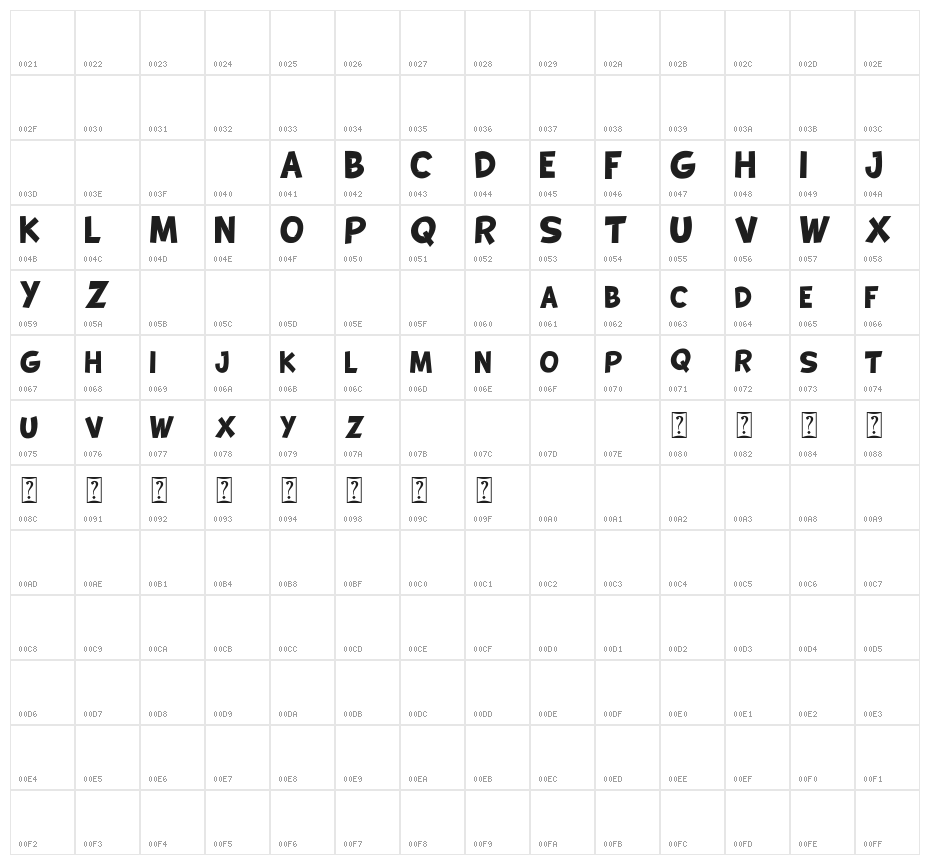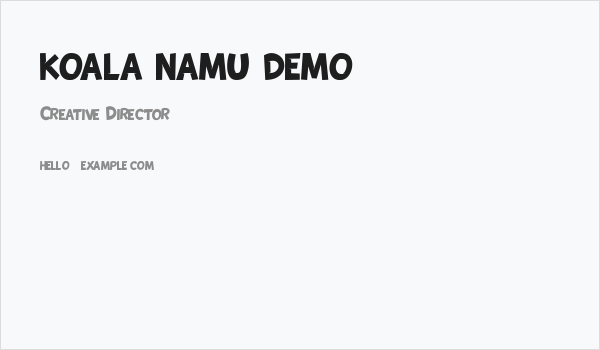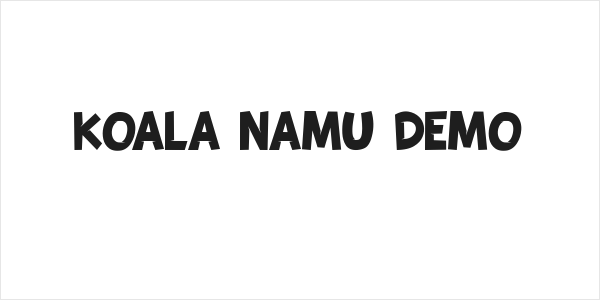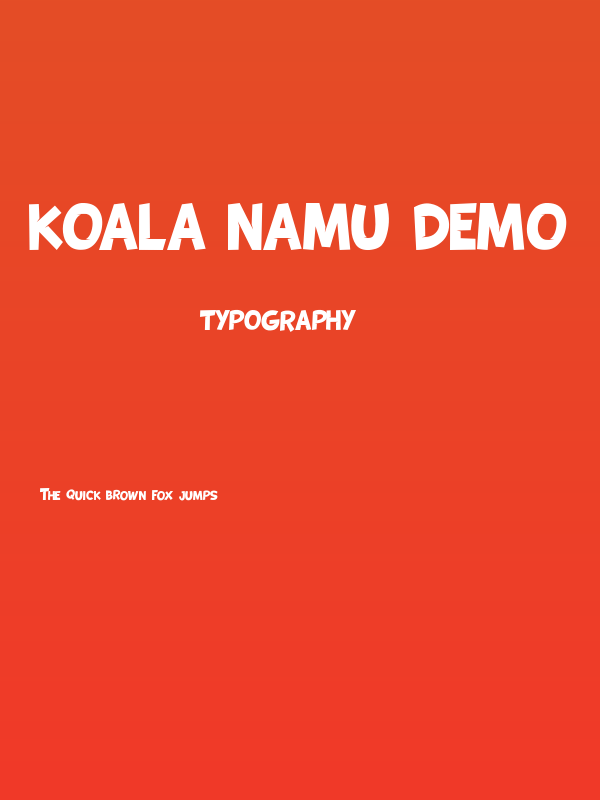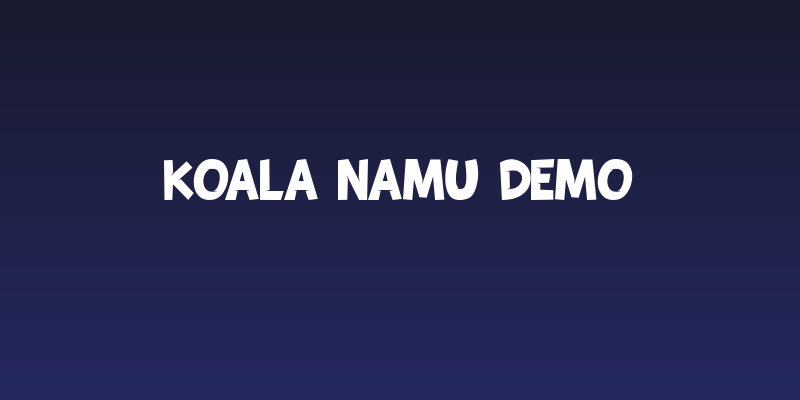
KOALA NAMU DEMO Font
KOALA NAMU DEMO Description
This font features bold, playful characters with a slightly irregular and dynamic appearance, giving it a lively and energetic feel. The letters are thick and robust, with a slight tilt that adds a sense of movement and fun. The strokes are consistent in width, providing a uniform look across all characters. The overall design is modern and eye-catching, making it suitable for creative and informal applications. The uppercase letters are prominent and well-defined, ensuring readability while maintaining a whimsical charm.
| Overall Style | Playful, Modern |
| Proposed Projects | Ideal for children's books, playful branding, posters, and creative advertising. |